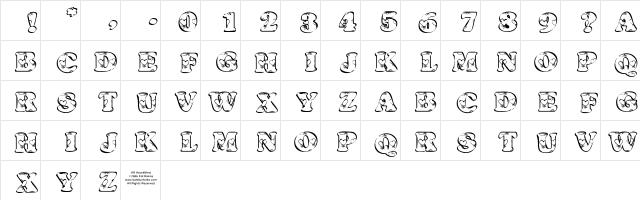
KR Heartfilled Regular
Design Context for KR Heartfilled Typeface
KR Heartfilled is a composed and adaptable typeface that performs quietly and consistently across a wide range of design contexts.
Pro Tip: Use KR Heartfilled in both headline and body roles to test its range before committing to a single application.